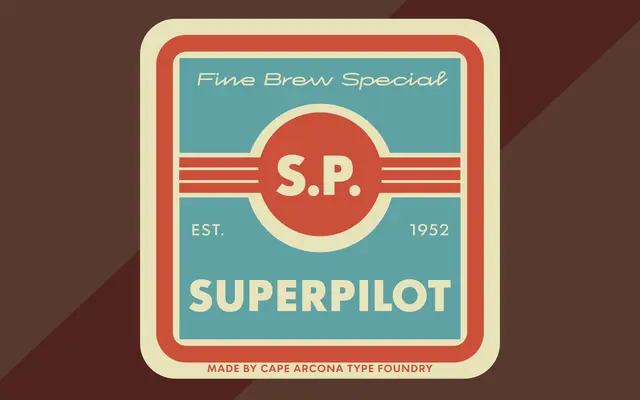
CA Superpilot
Cape Arcona · Thomas Schostok
A 32-style typeface duo pairing a geometric Futura-derived sans with a monoline script drawn from vintage 1950s camera equipment lettering.
The sans component spans five weights from Light to Black with matching italics across normal, condensed and expanded widths, following the proportions and spirit of Futura. The script component references logos and type designations found on mid-century camera equipment, producing a monoline style suited to uppercase headline settings despite its calligraphic origins. Both subfamilies share Central European and Western character sets, contextual alternates and stylistic sets, and the full family is available as a variable font.
The sans component is described as a modern interpretation of Futura, placing it firmly in the geometric sans tradition. The foundry classifies the overall family as Script, Sans Serif, and Display.